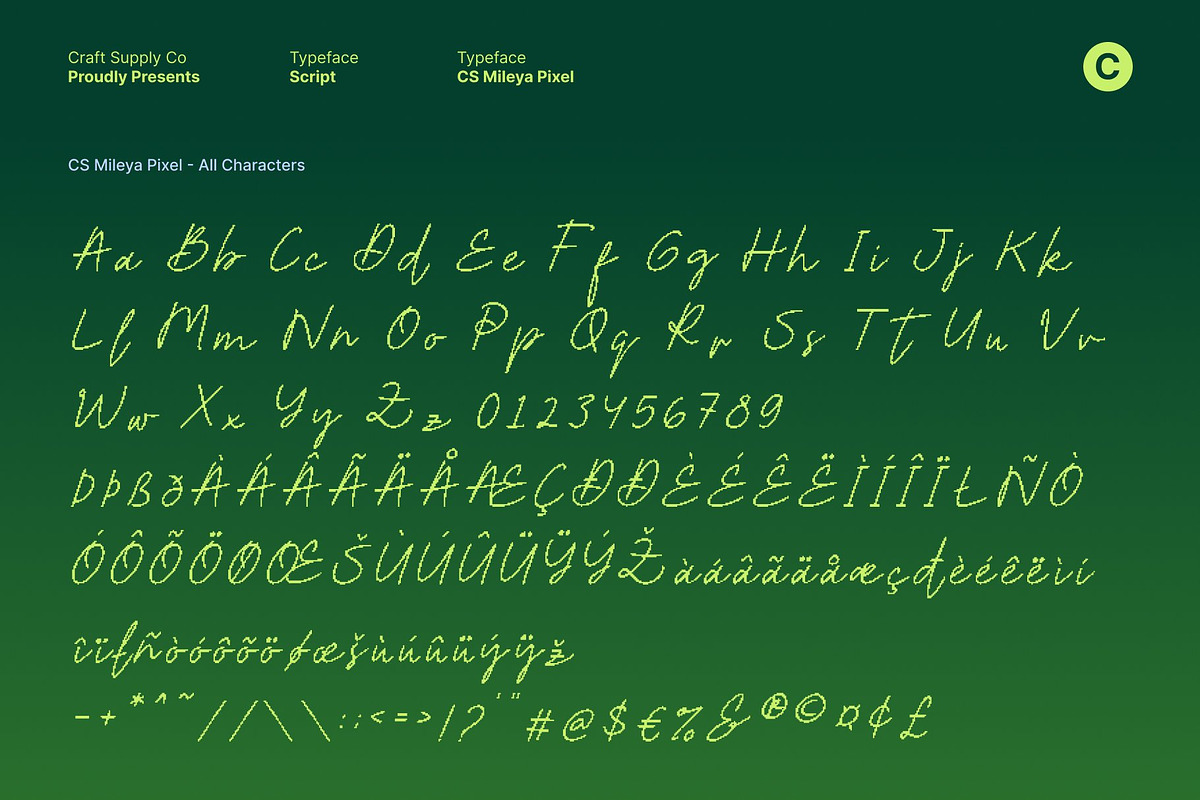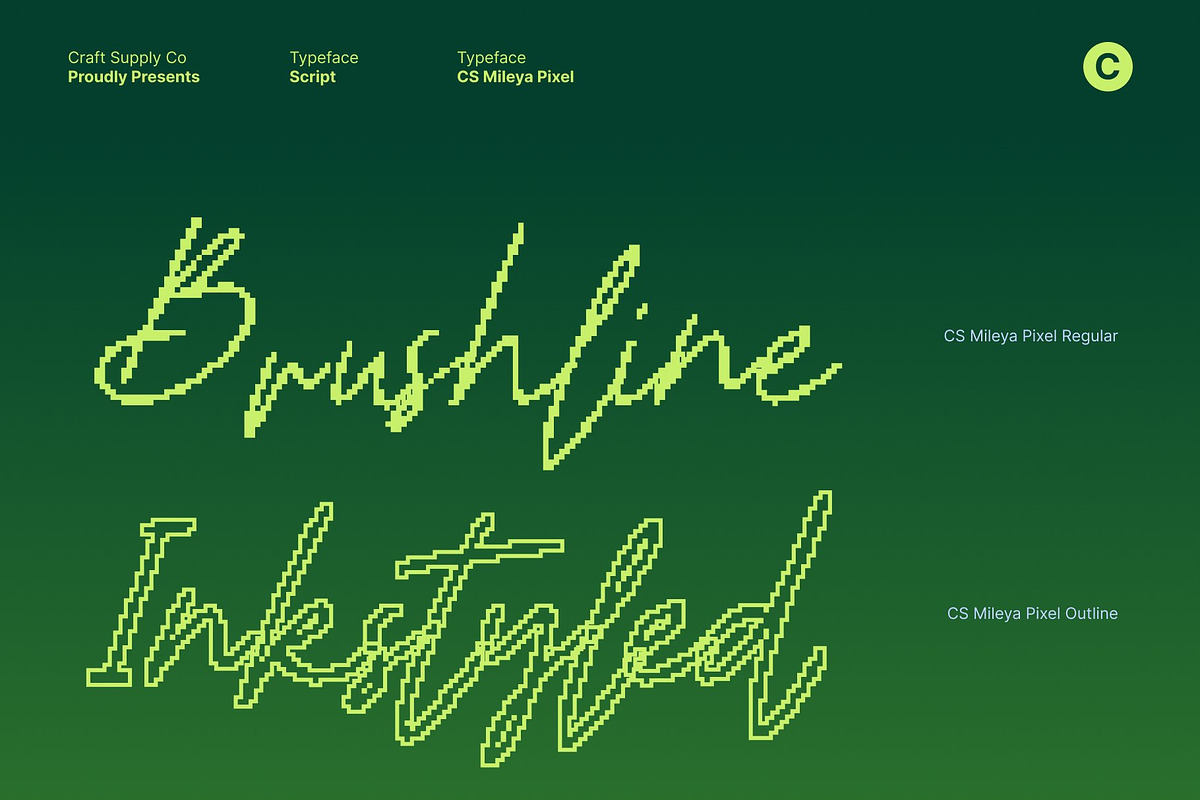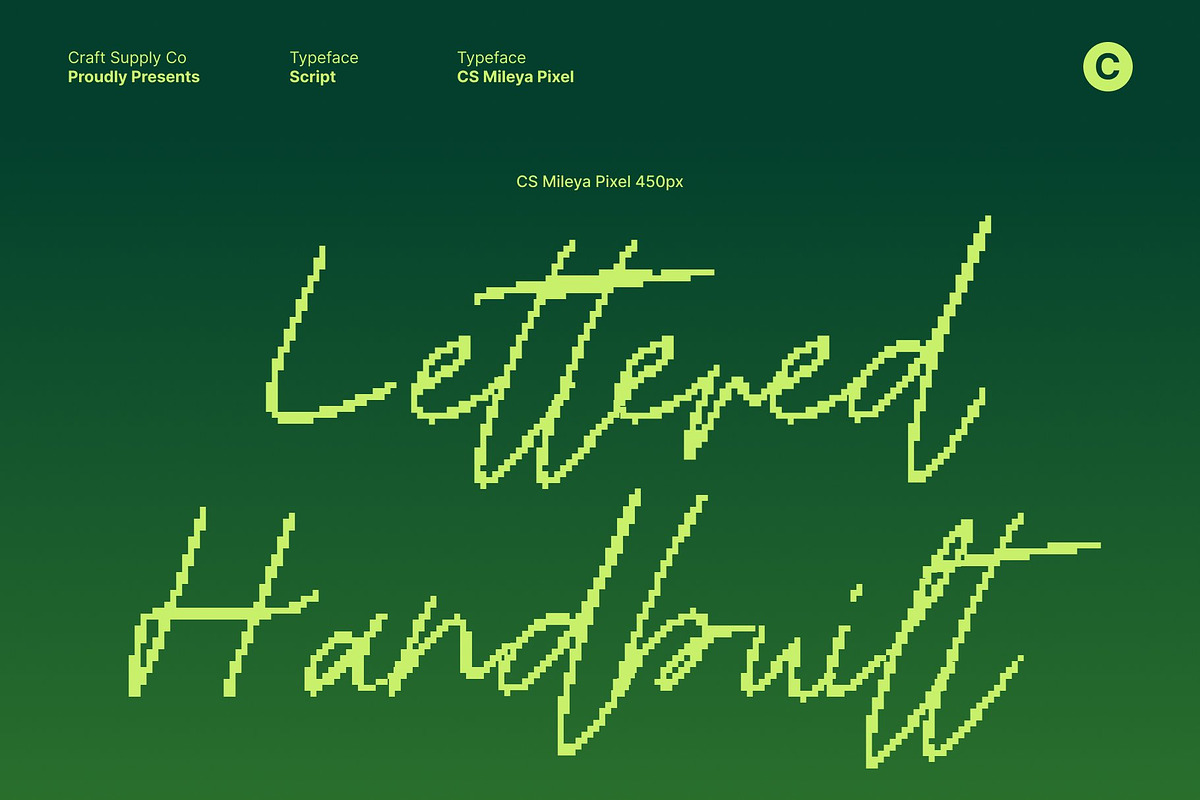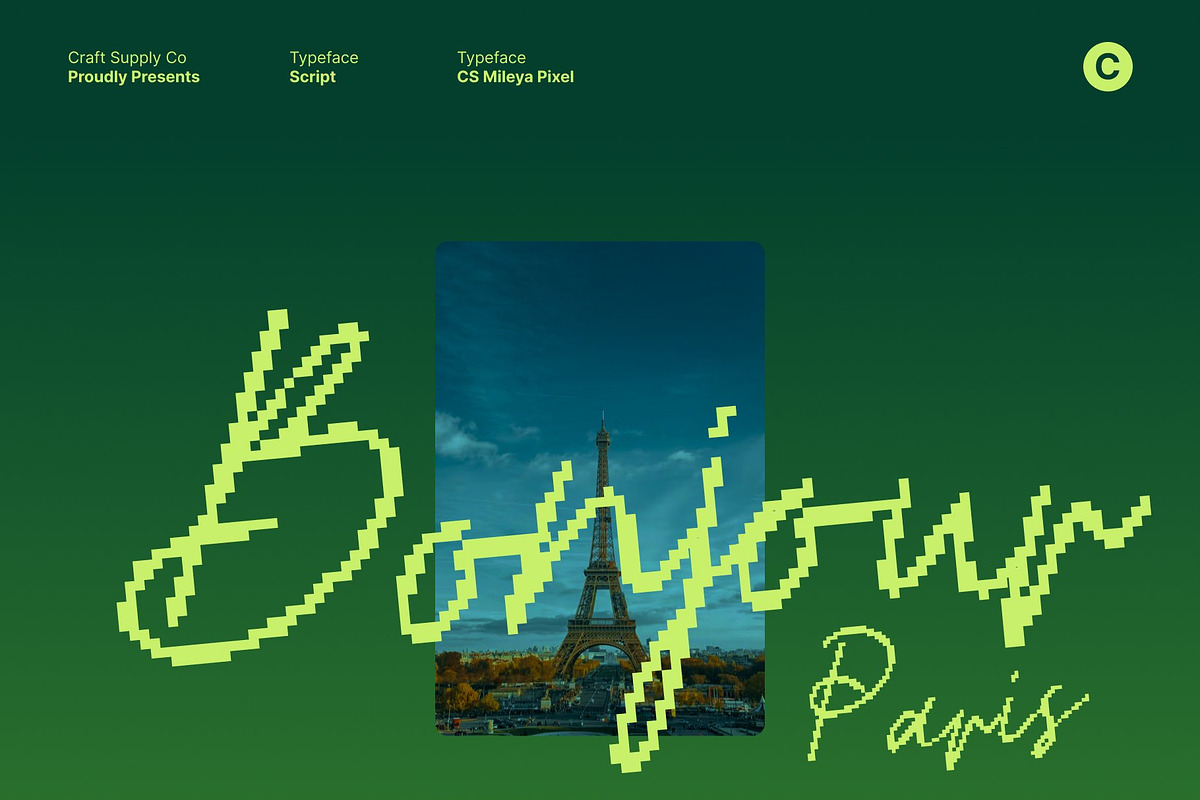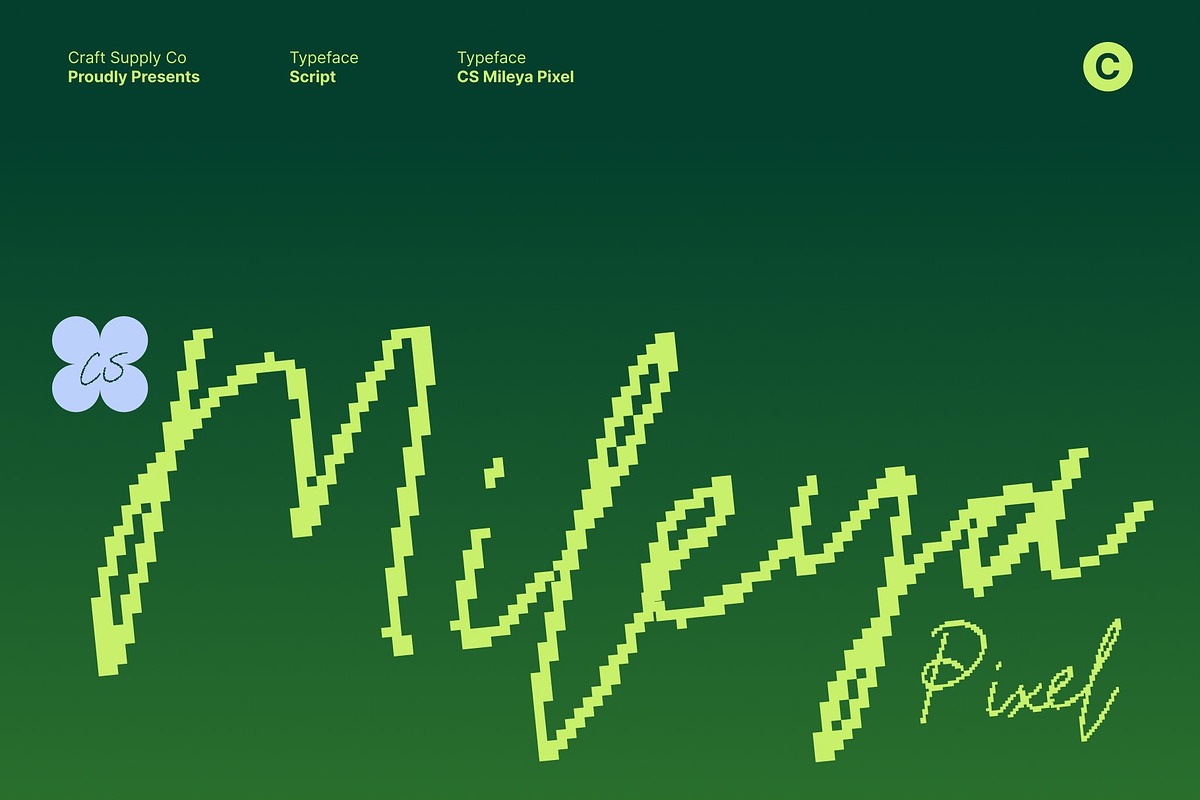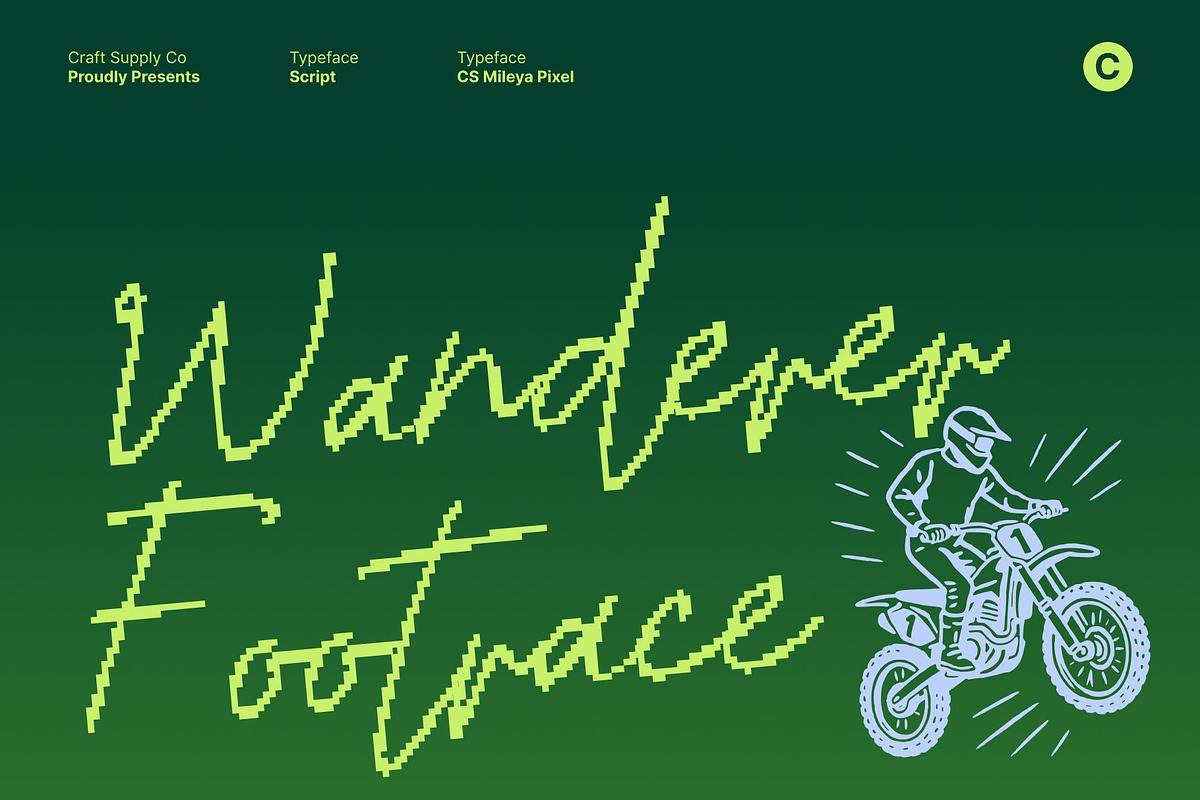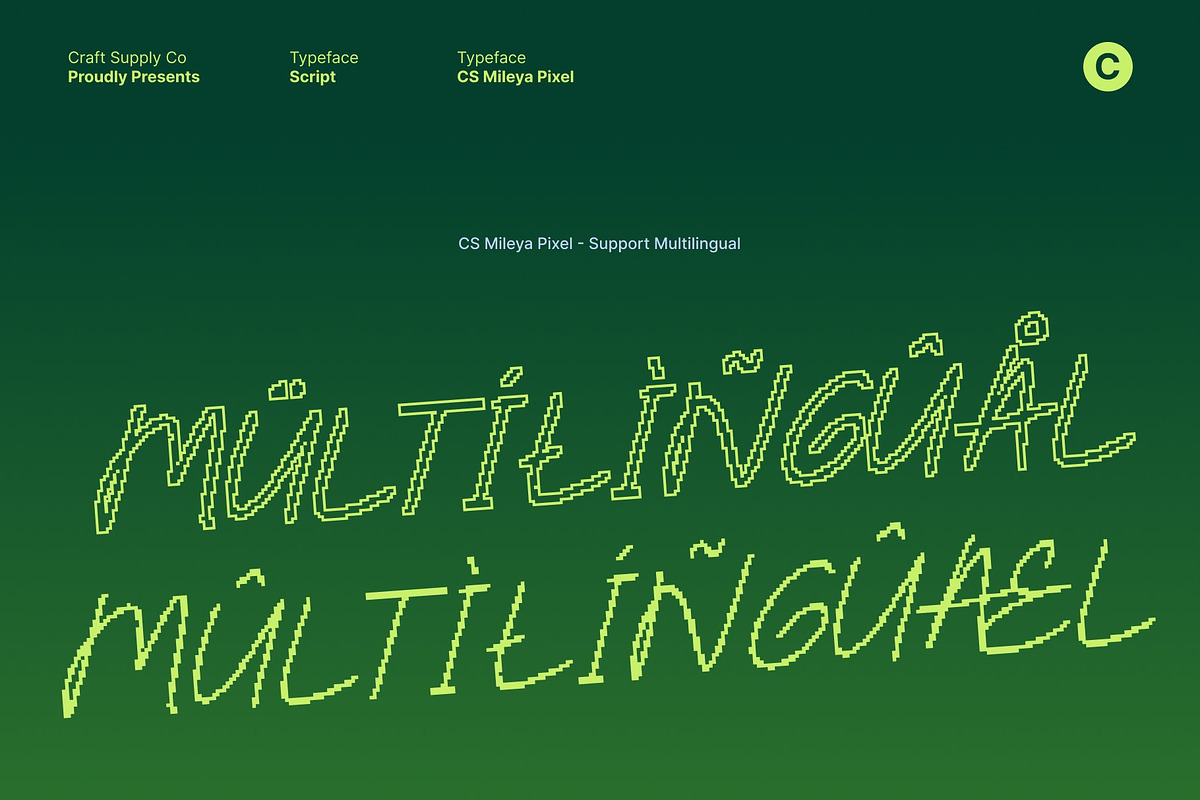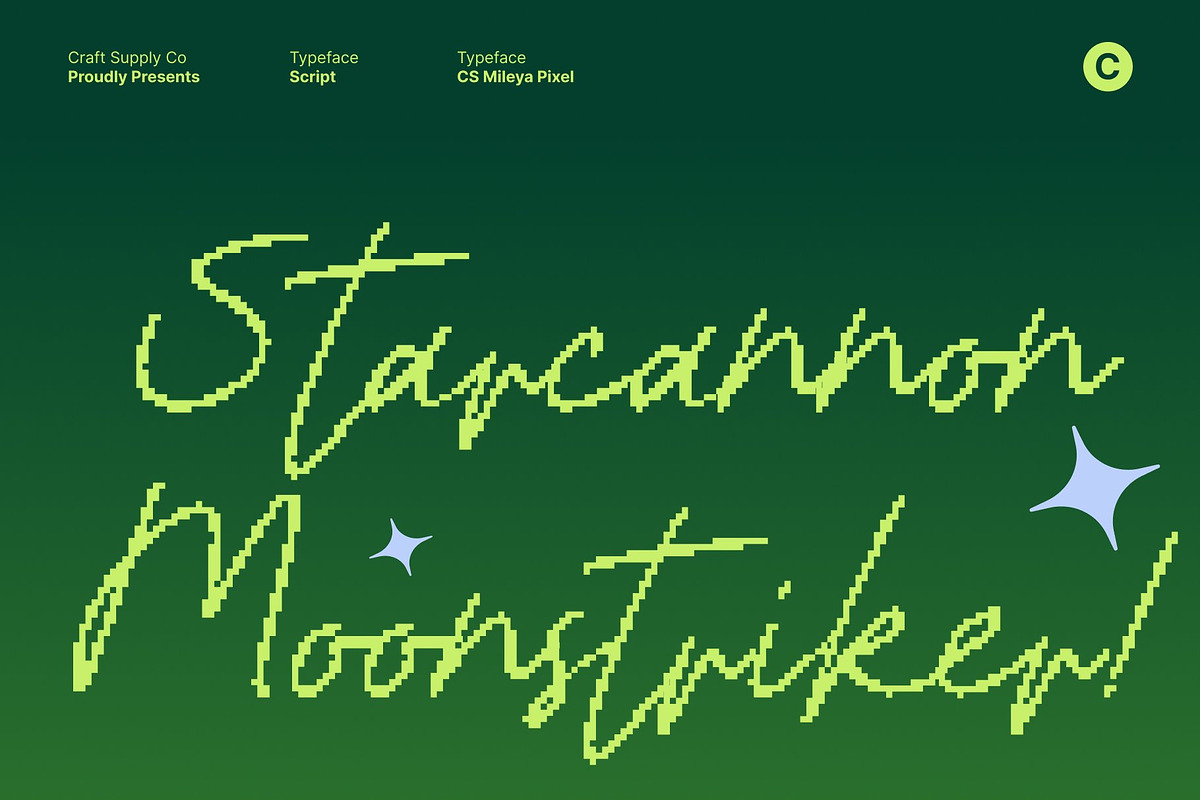
CS Mileya Pixel
CS Mileya Pixel – Graceful Script Elegance with Digital Charm
Flowing Script Reimagined in Pixel Sophistication This is a stylish script font that blends beautifully flowing strokes with a refined pixel-inspired structure. Its graceful curves retain a handwritten, luxurious rhythm, while the pixel detailing introduces a subtle digital edge. This fusion creates typography that feels elegant, modern, and visually distinctive perfect for designers who want softness with a contemporary tech nuance.
Graceful Curves with Pixel Precision The smooth, sweeping connections of elevate every word with charm and refinement, while the pixel construction adds clarity and character inspired by classic digital displays. This balance between fluid motion and structured form transforms text into a unique visual statement, maintaining readability while enhancing its artistic and modern appeal.
Perfect for Weddings, Fashion, and Digital Luxury Projects This font shines in wedding invitations, fashion branding, luxury editorials, and creative digital layouts. Its elegant script personality paired with pixel styling makes it ideal for projects that blend romance with modern aesthetics from premium social media visuals to stylish branding rooted in digital culture.
Chic, Versatile, and Crafted for Modern Screens Despite its delicate appearance, adapts effortlessly across print and digital platforms. It performs beautifully in logos, packaging, magazine layouts, and online content, offering a refined script look with a nostalgic yet modern digital flavor. Whenever your design calls for elegance with a subtle pixel-tech soul, delivers timeless charm with contemporary confidence.